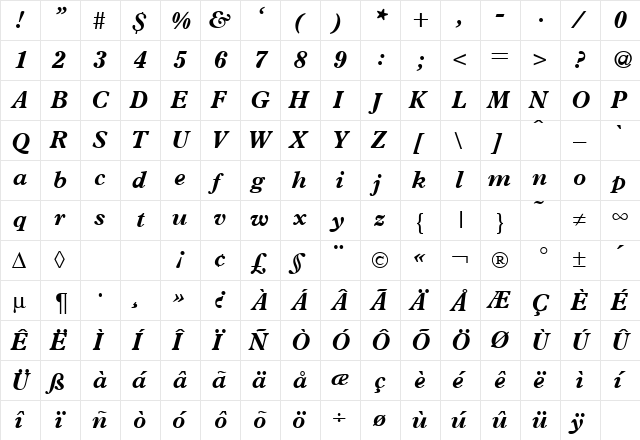
Placid BoldItalic
Design Context for Placid Typeface
Placid offers clean, dependable letterforms without strong stylistic allegiance, making it a practical choice for designers who need flexibility. The slanted form adds forward momentum and visual energy. Its bold stroke weight gives it real presence on the page.